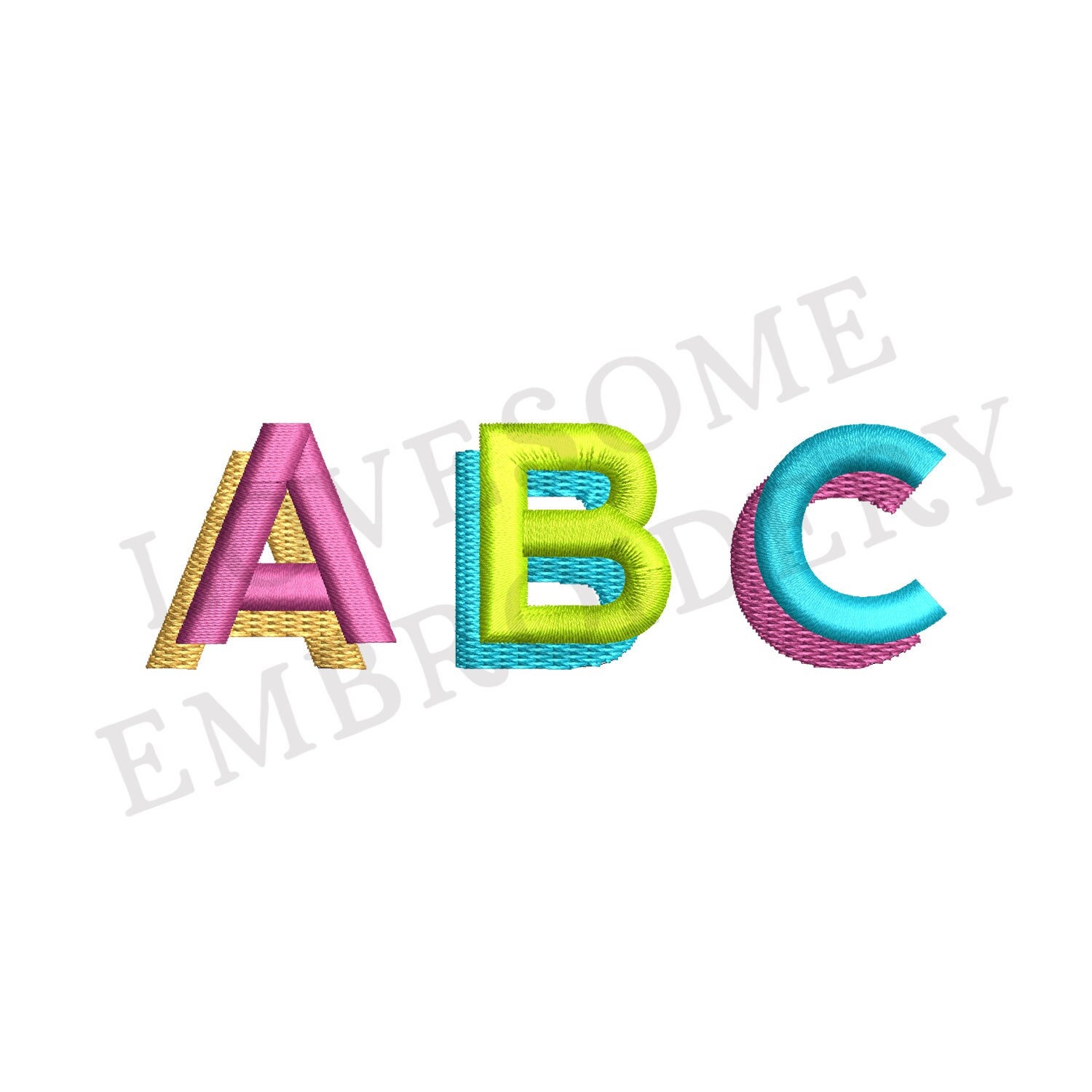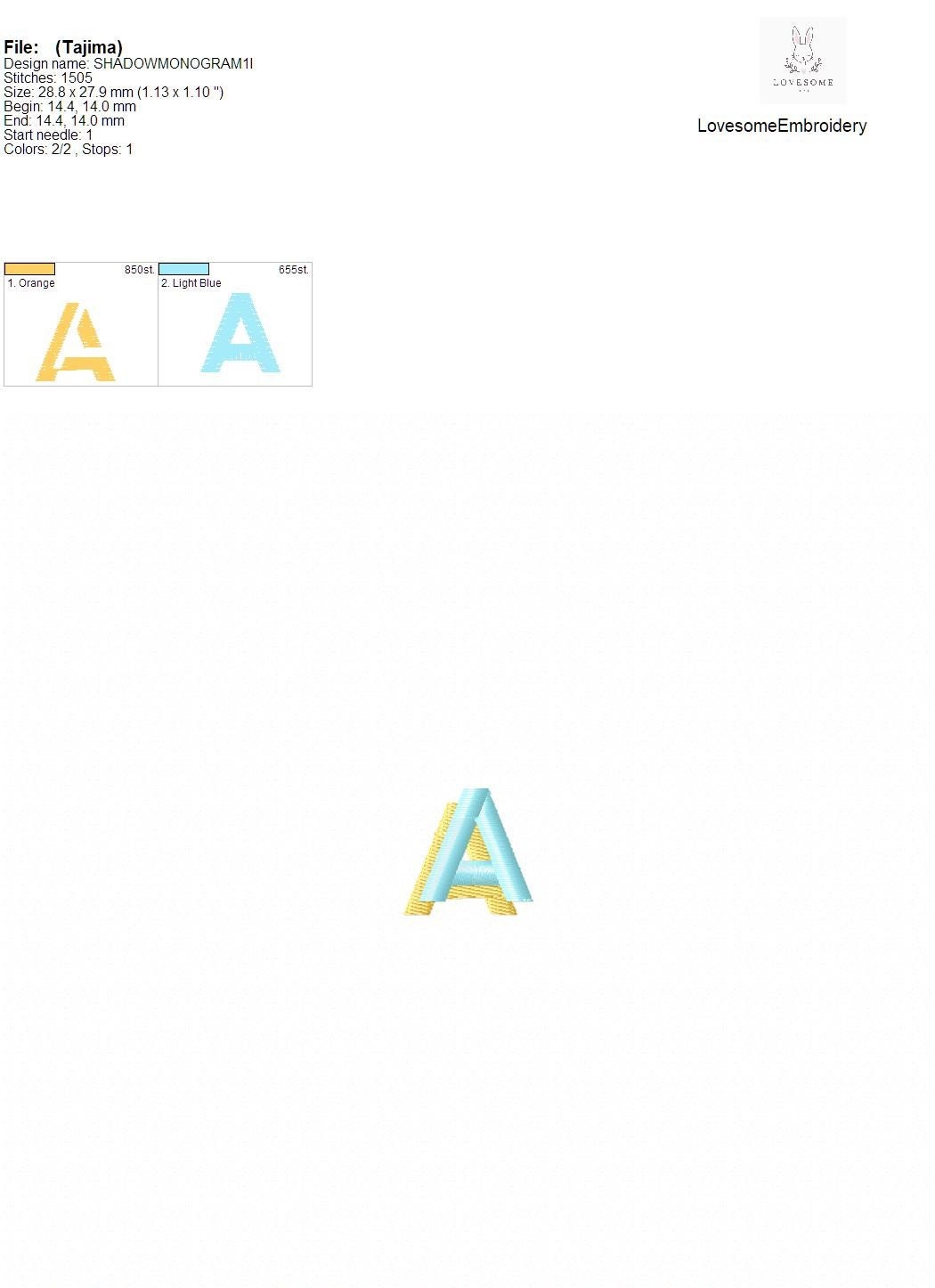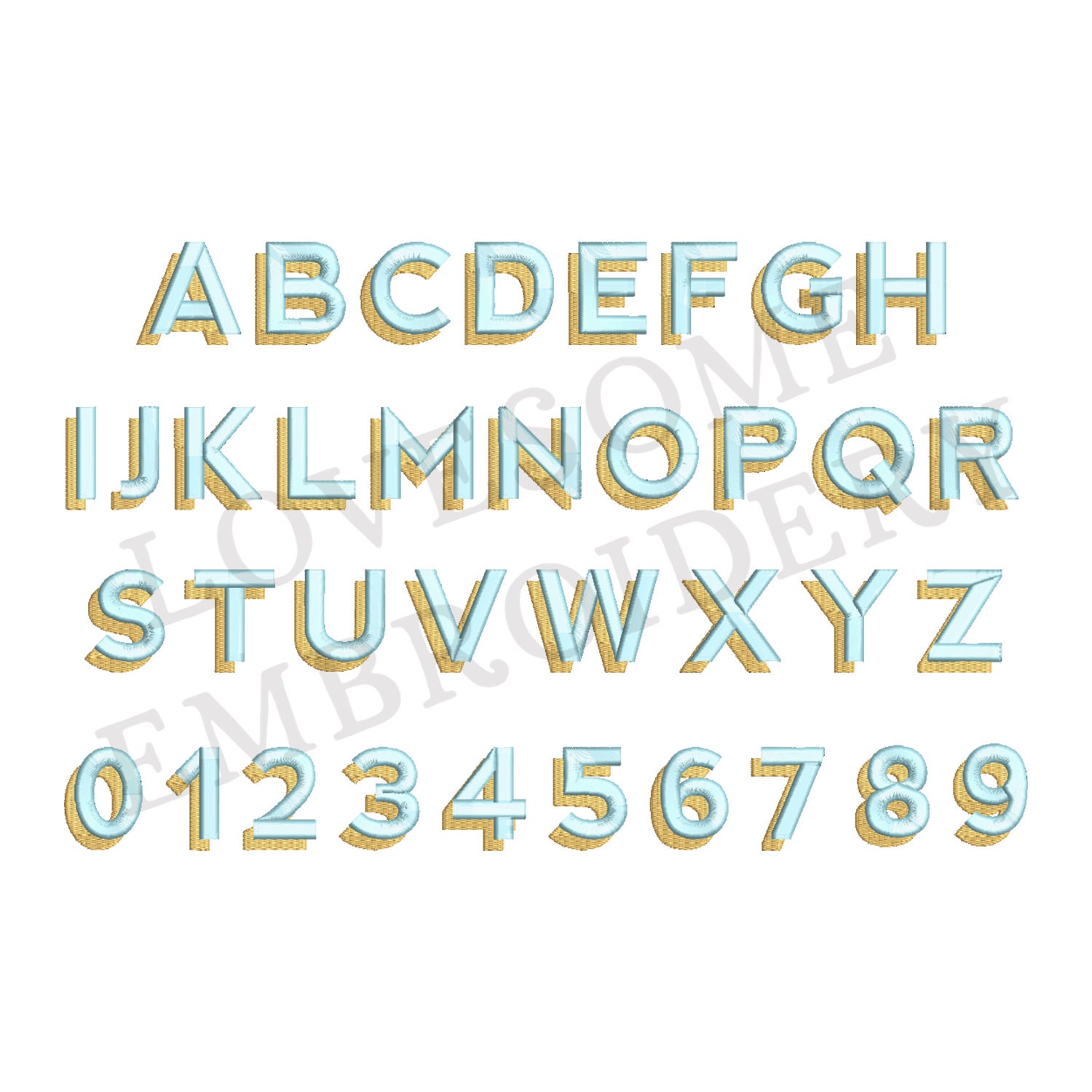
Shadow Monogram 1inch BX Font A-Z Machine Embroidery Font Digital Download | Lovesome Design
This listing features a machine embroidery font set which includes embroidery files of 26 uppercase monogram shadow letters and 0-9 numbers in 1inch size. (For the whole set, pls see the listing images.)